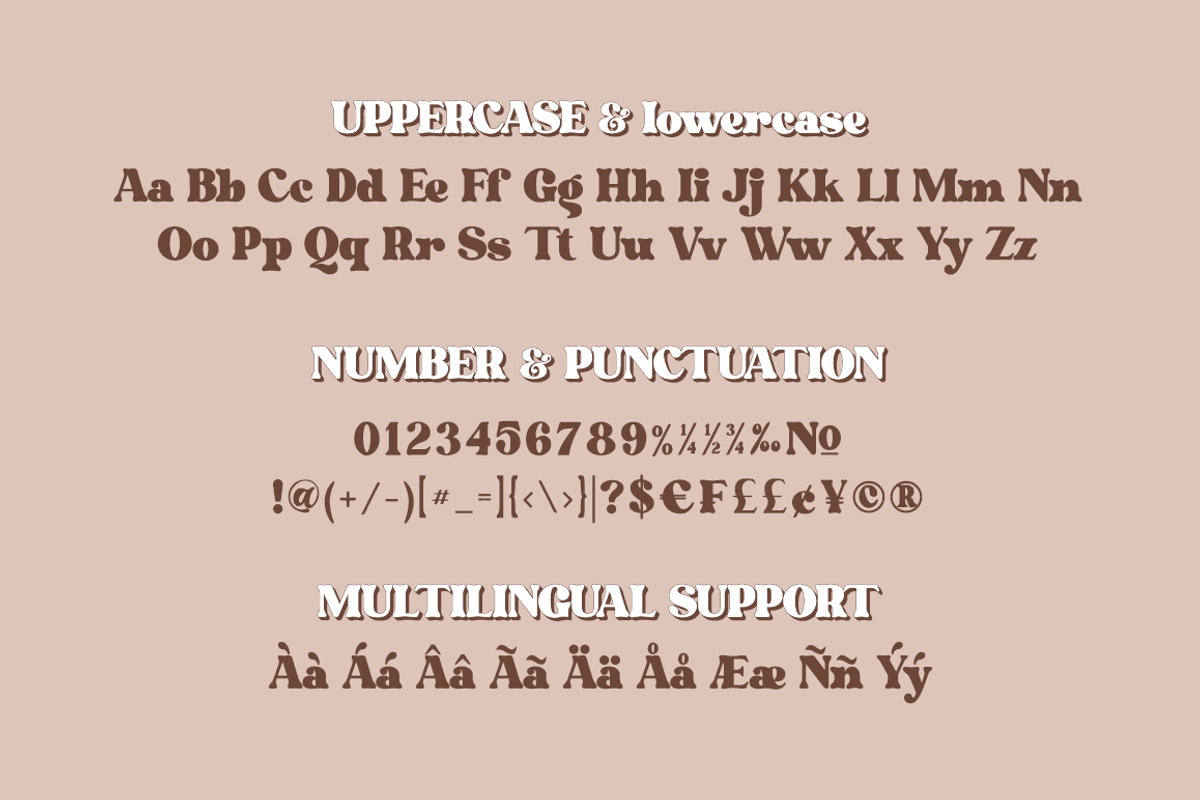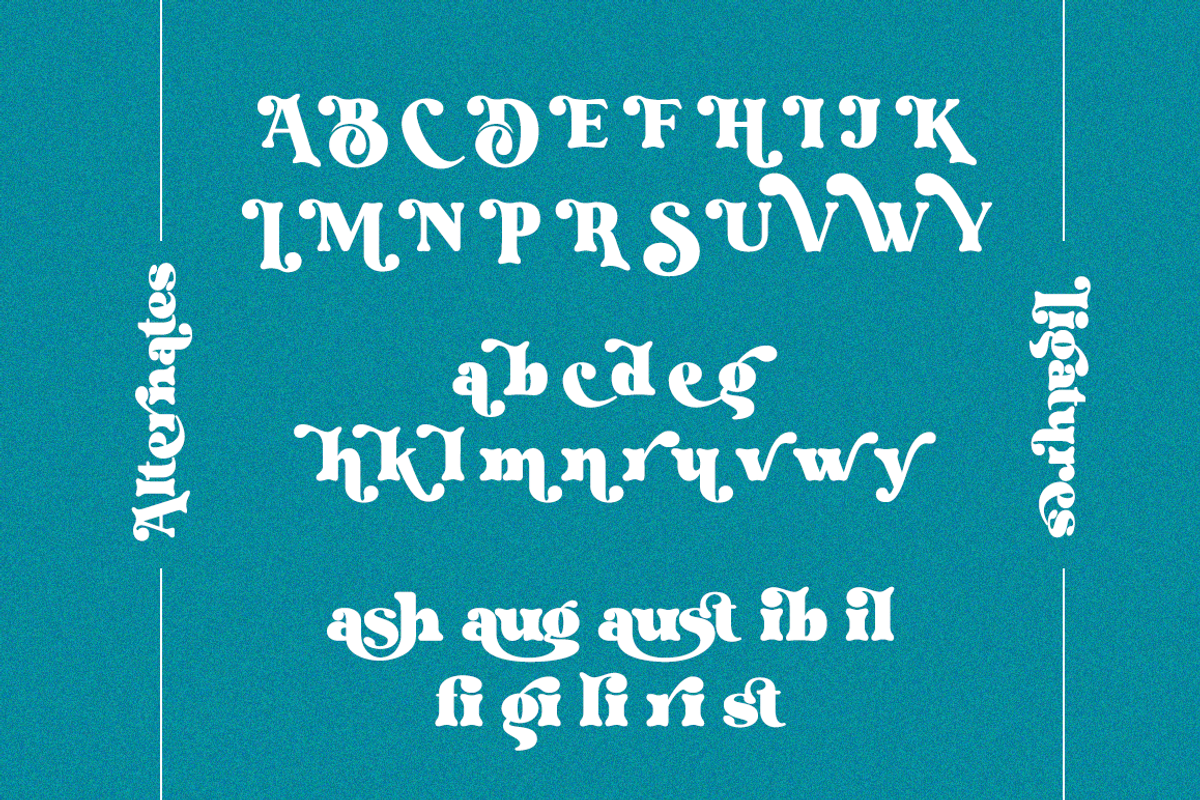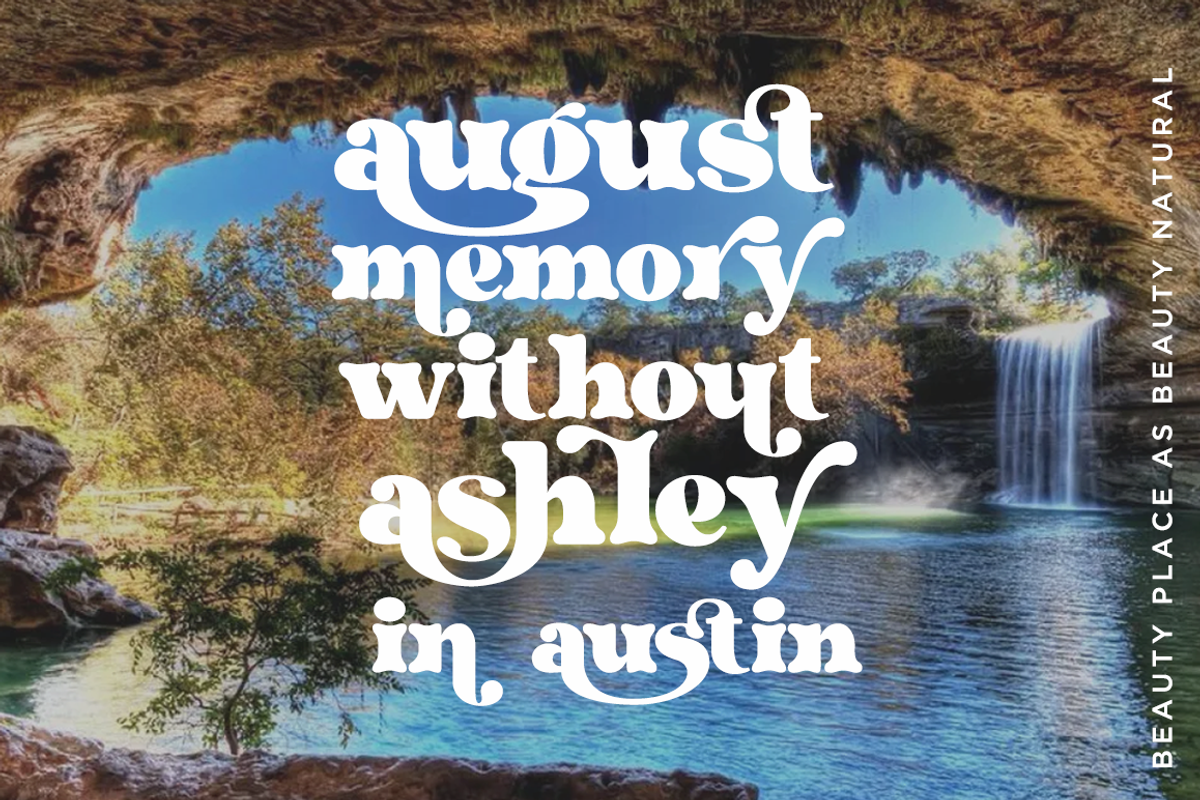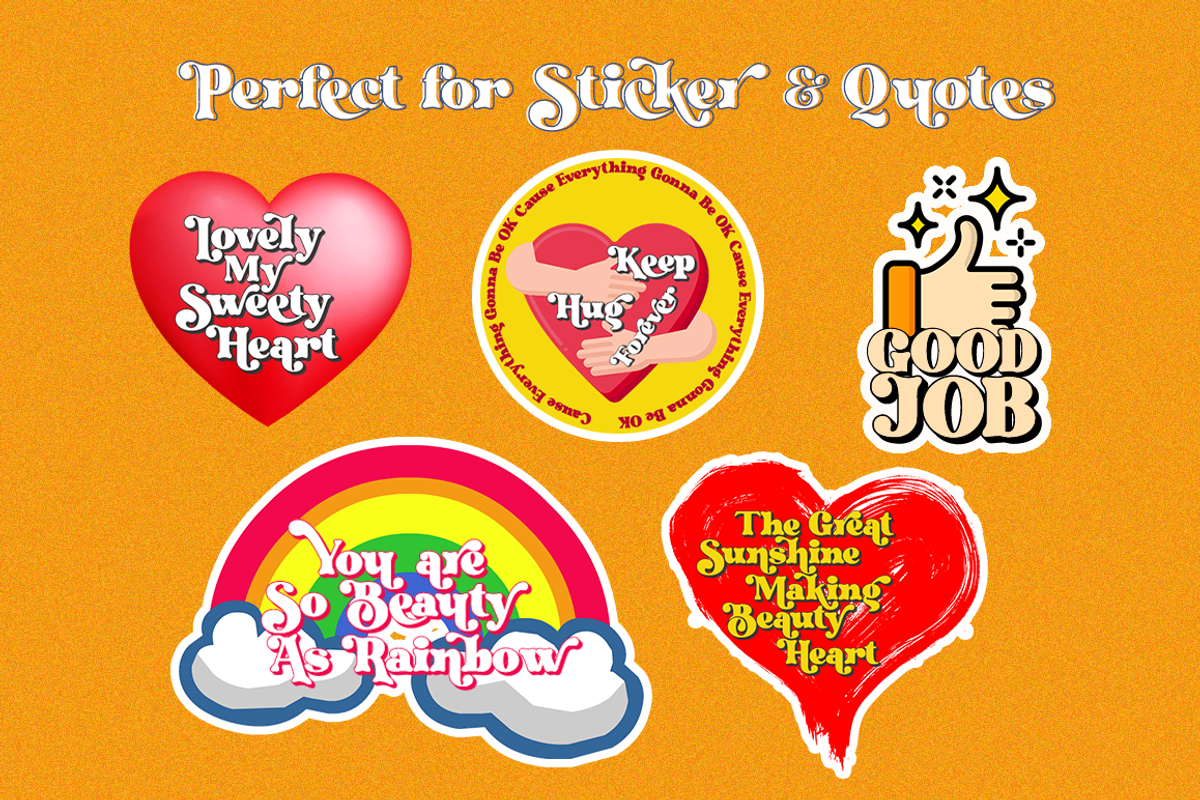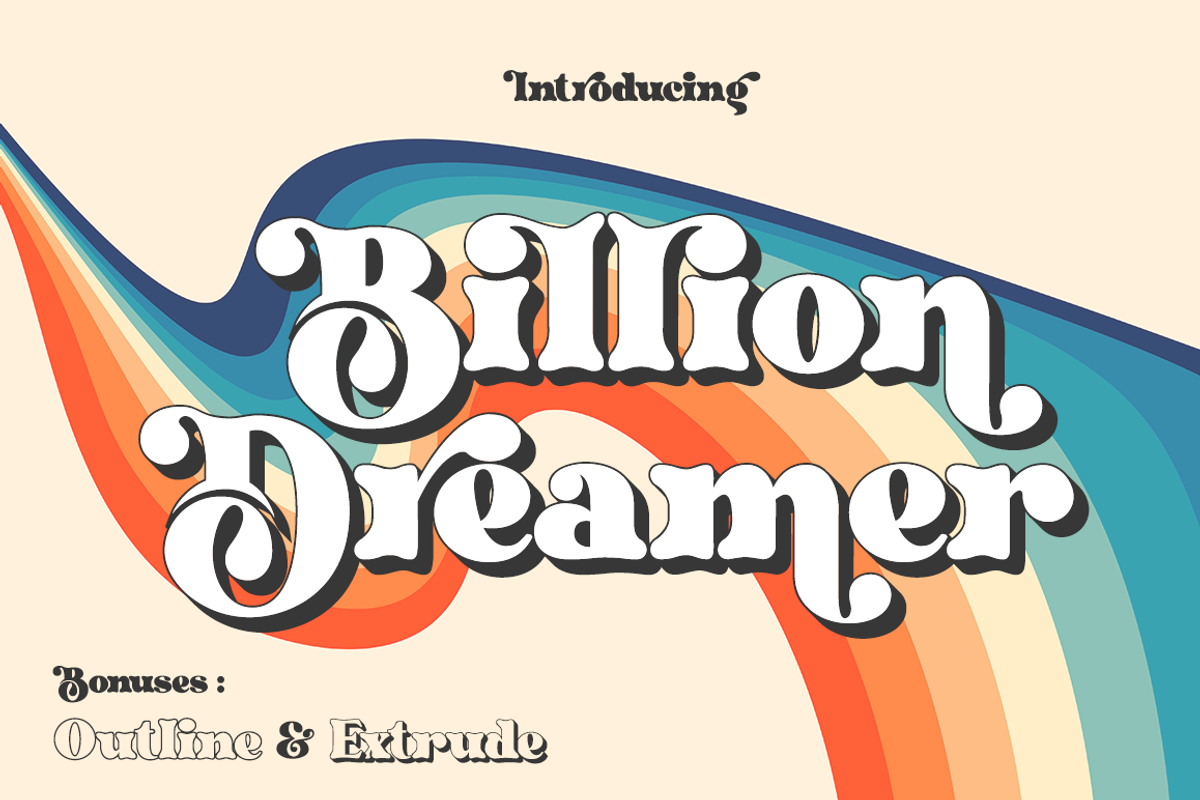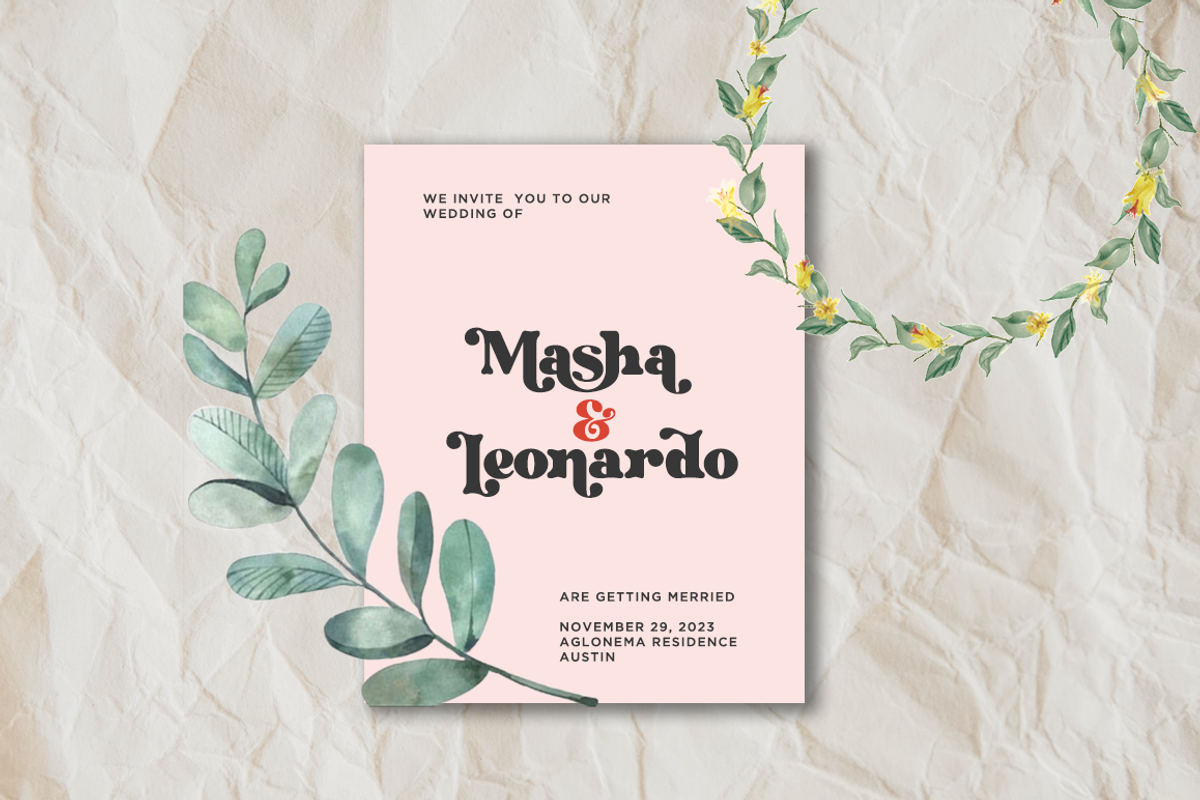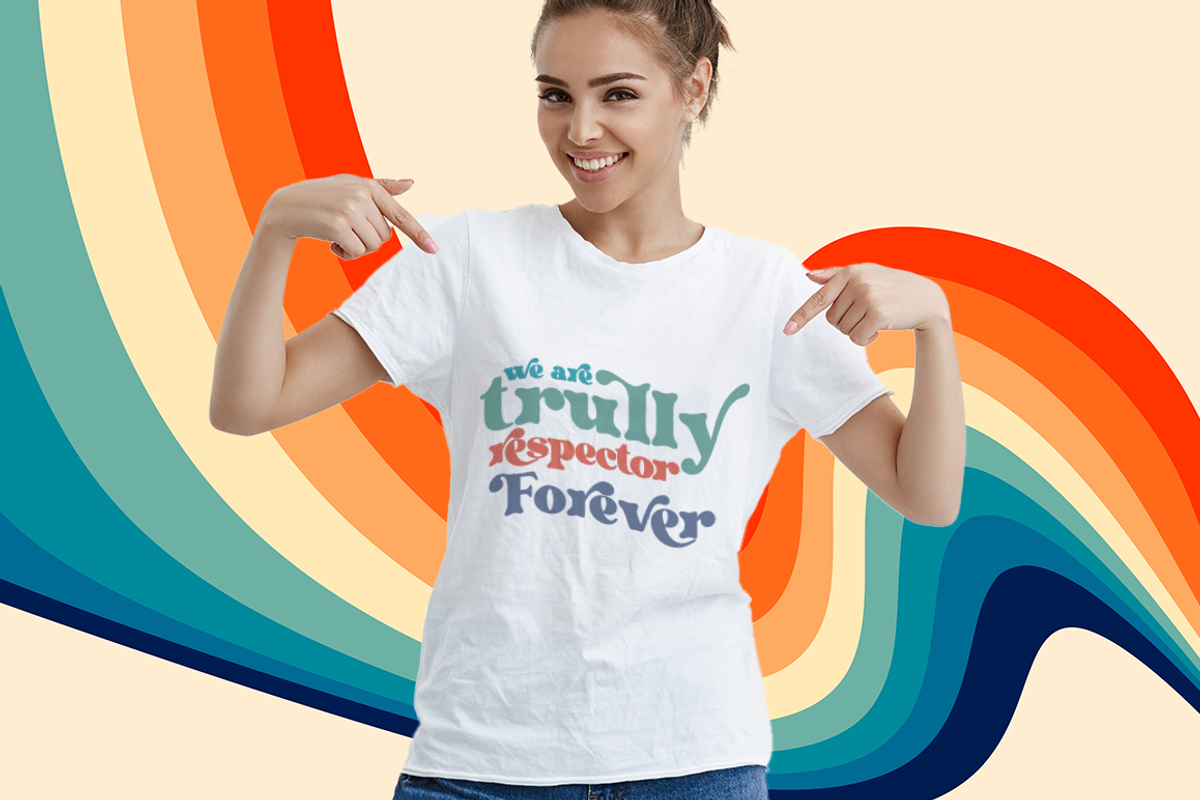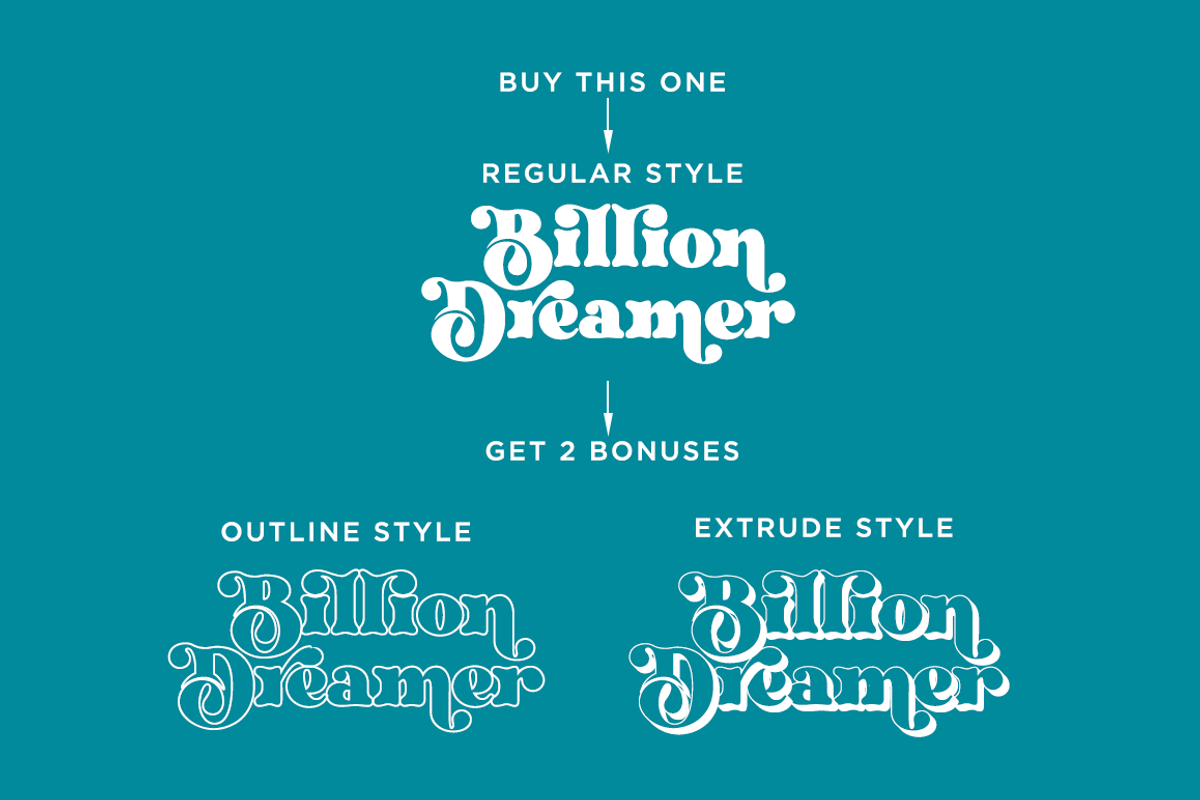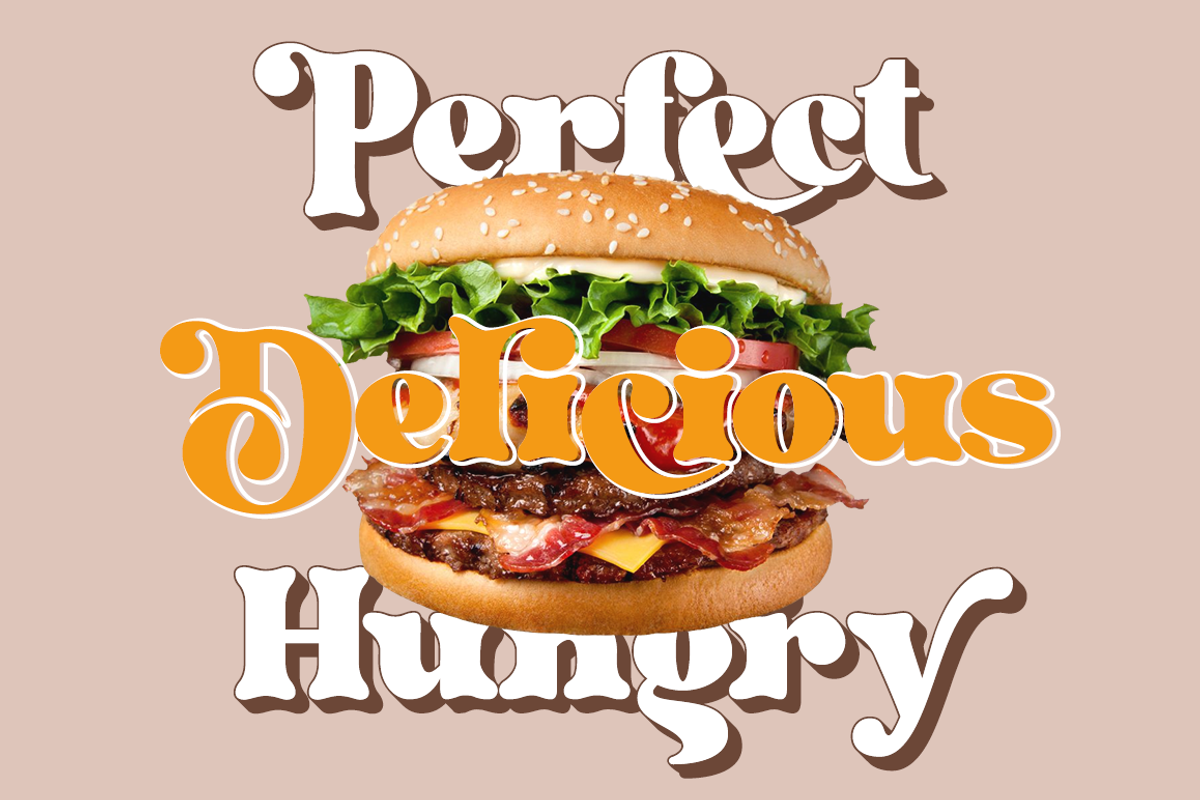
Billion Dreamer Retro Bold Font
Billion Dreamer is a Bold serif display style with unique anatomy every letter. Provide variant alternates and ligatures make the design letter looks incredible. Honestly it works perfectly for headlines, logos, posters, packaging and much more.
- Regular and Italic version -Character set A-Z in uppercase and lowercase
- Alternates in Uppercase and Lowercase
- Accented Characters
- Multiple Languages Supported